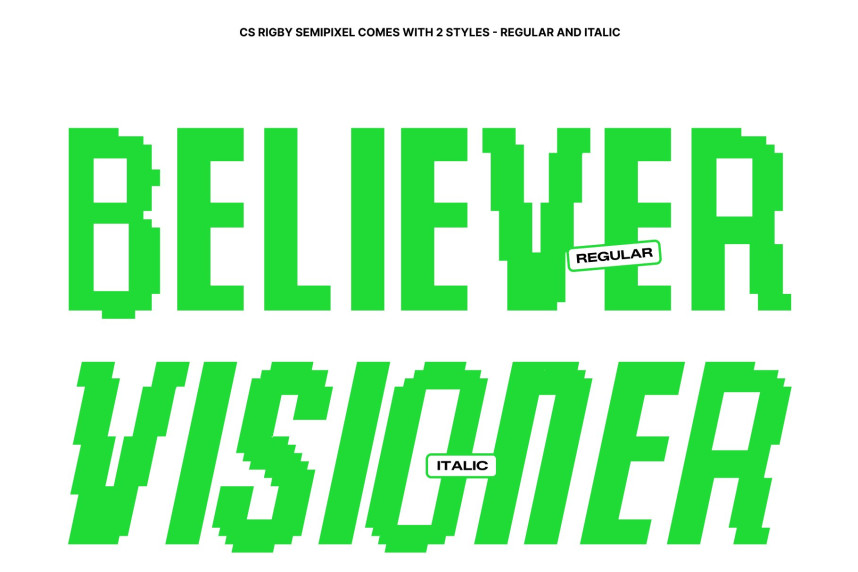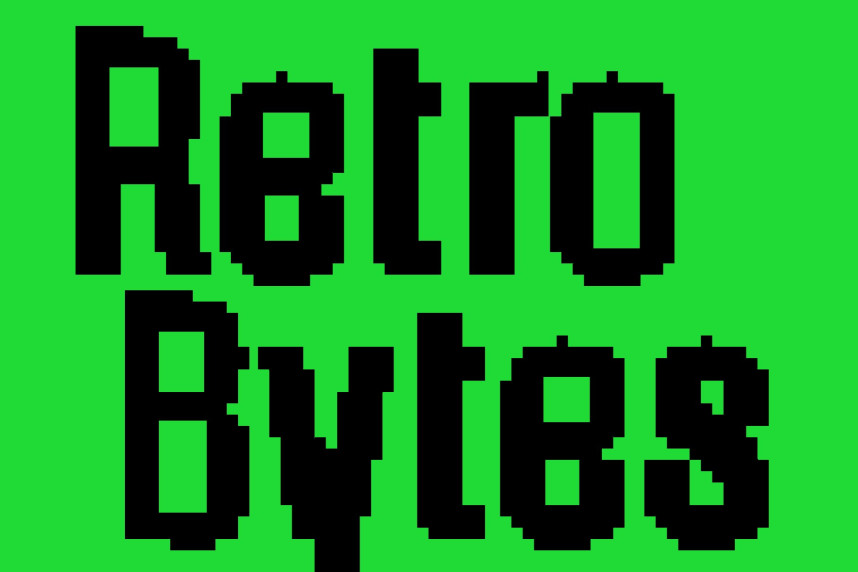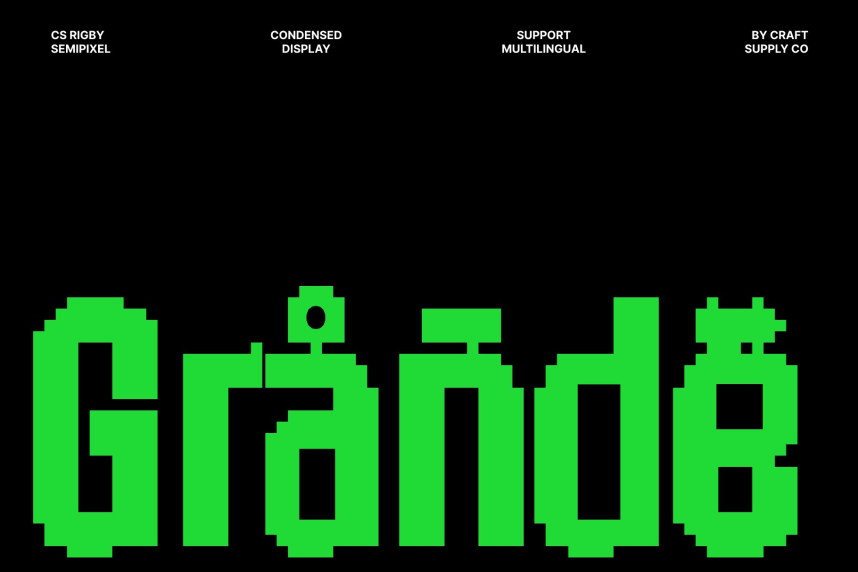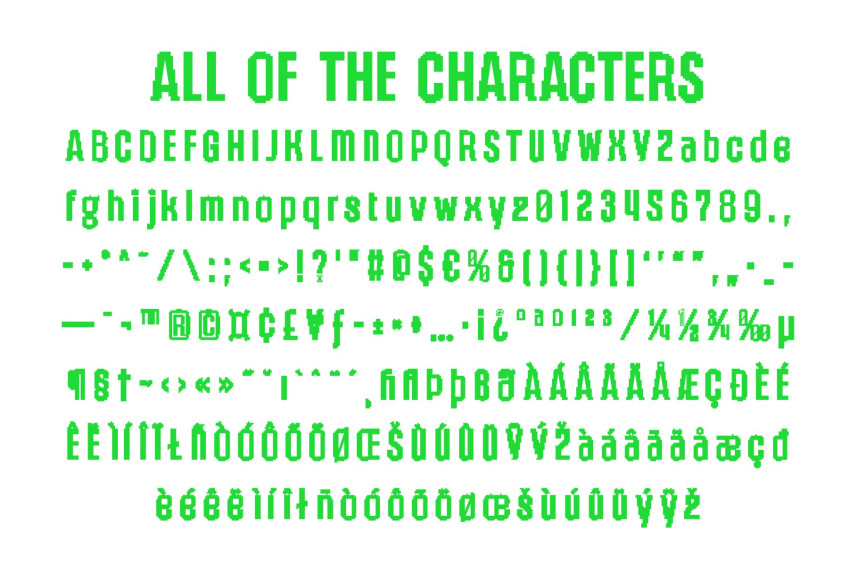
CS Rigby Semipixel Font
CS Rigby Semipixel Font – Condensed Display Sans Serif Font: Where Industrial Precision Meets Smooth Digital Style
Bold Industrial Construction with Technical Character
This is a display condensed sans serif font built with a bold industrial spirit and a distinctly technical attitude. Featuring straight lines, sharp angles, and balanced proportions work together to deliver a clean, structured aesthetic with exceptional readability.